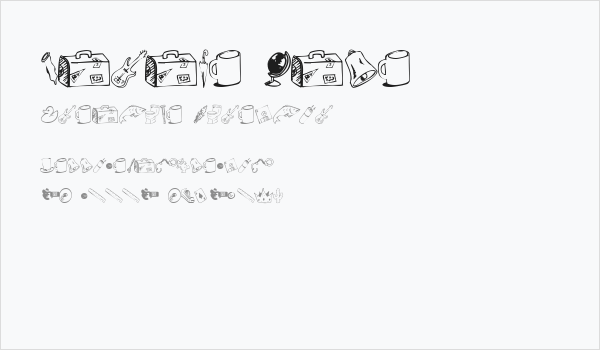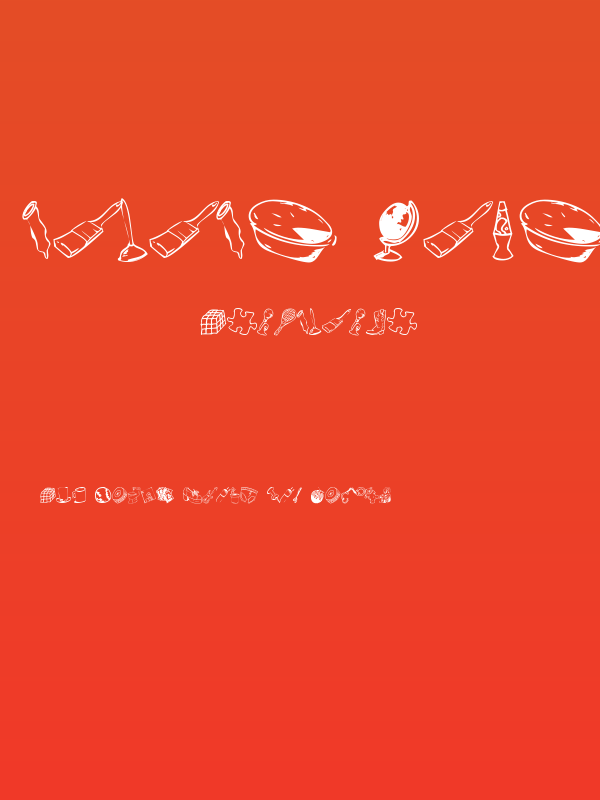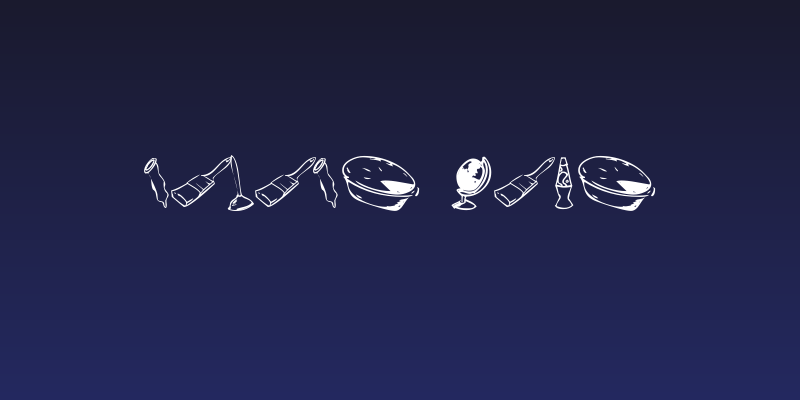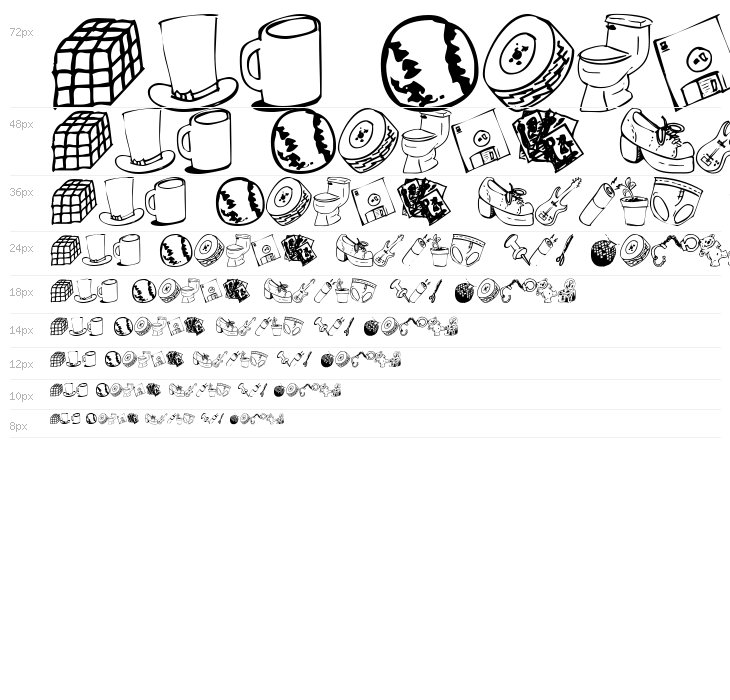
Garage Sale Font
Garage Sale Description
A playful, hand-drawn dingbat font featuring a variety of garage sale-themed objects and icons, each letter and symbol replaced by a unique illustrated item such as toys, tools, household goods, and novelty items. The style is whimsical with irregular line work and a casual, sketchy appearance.
| Overall Style | Playful, Whimsical, Decorative |
| Use Case | Decorative elements, Themed graphics, Event materials |
| Proposed Projects | Event flyers, childrenΓ’β¬β’s party invitations, themed posters, scavenger hunt materials, playful branding. |